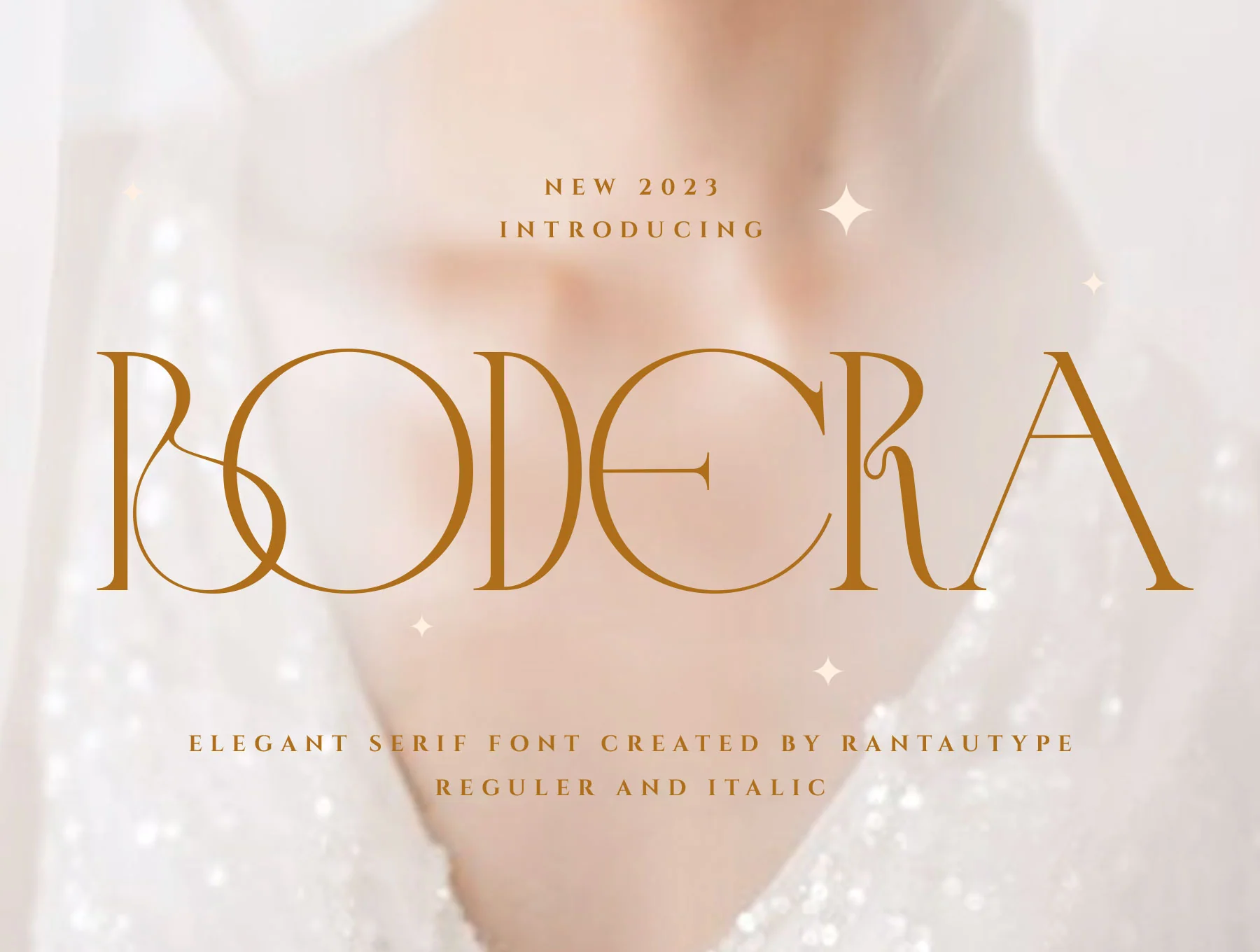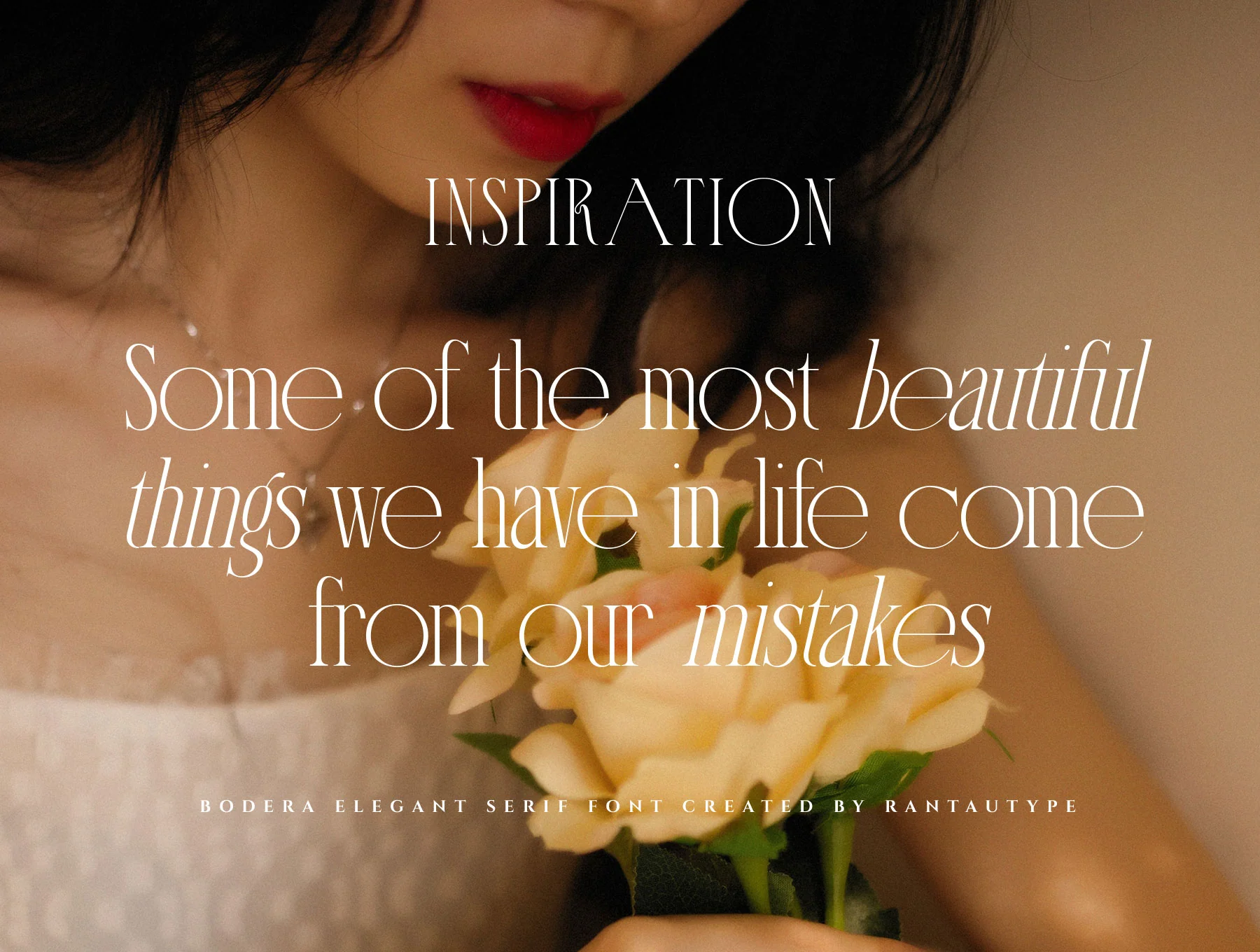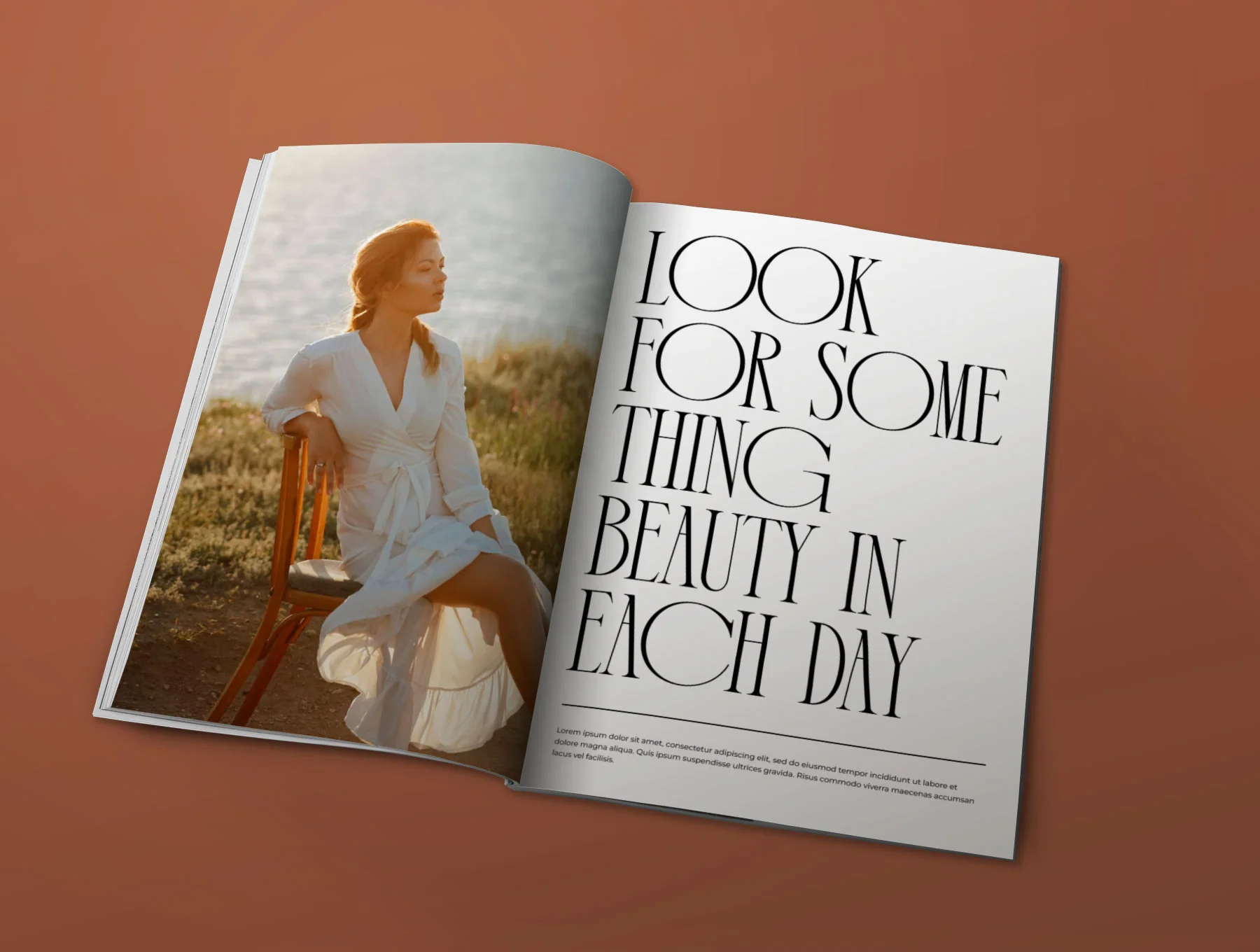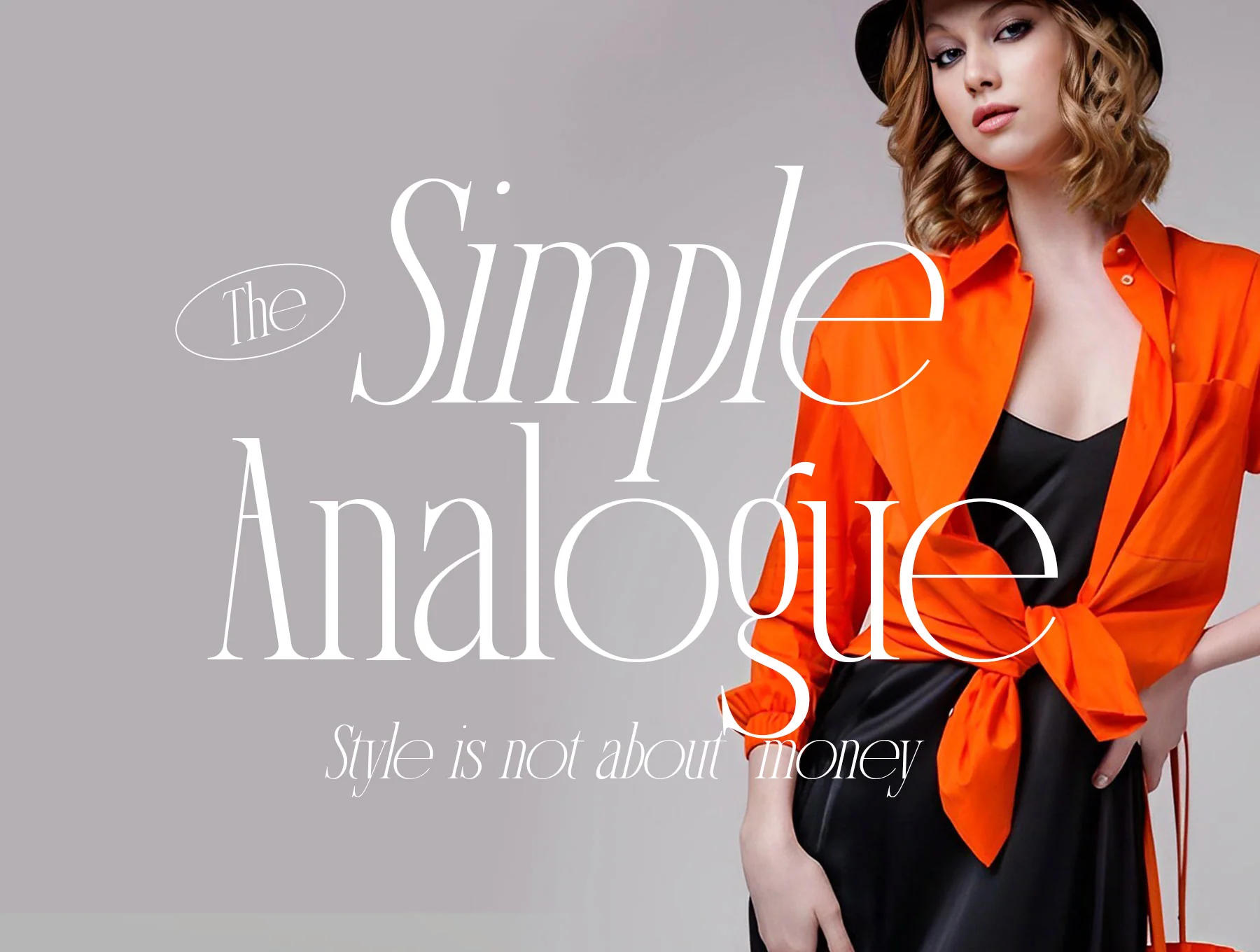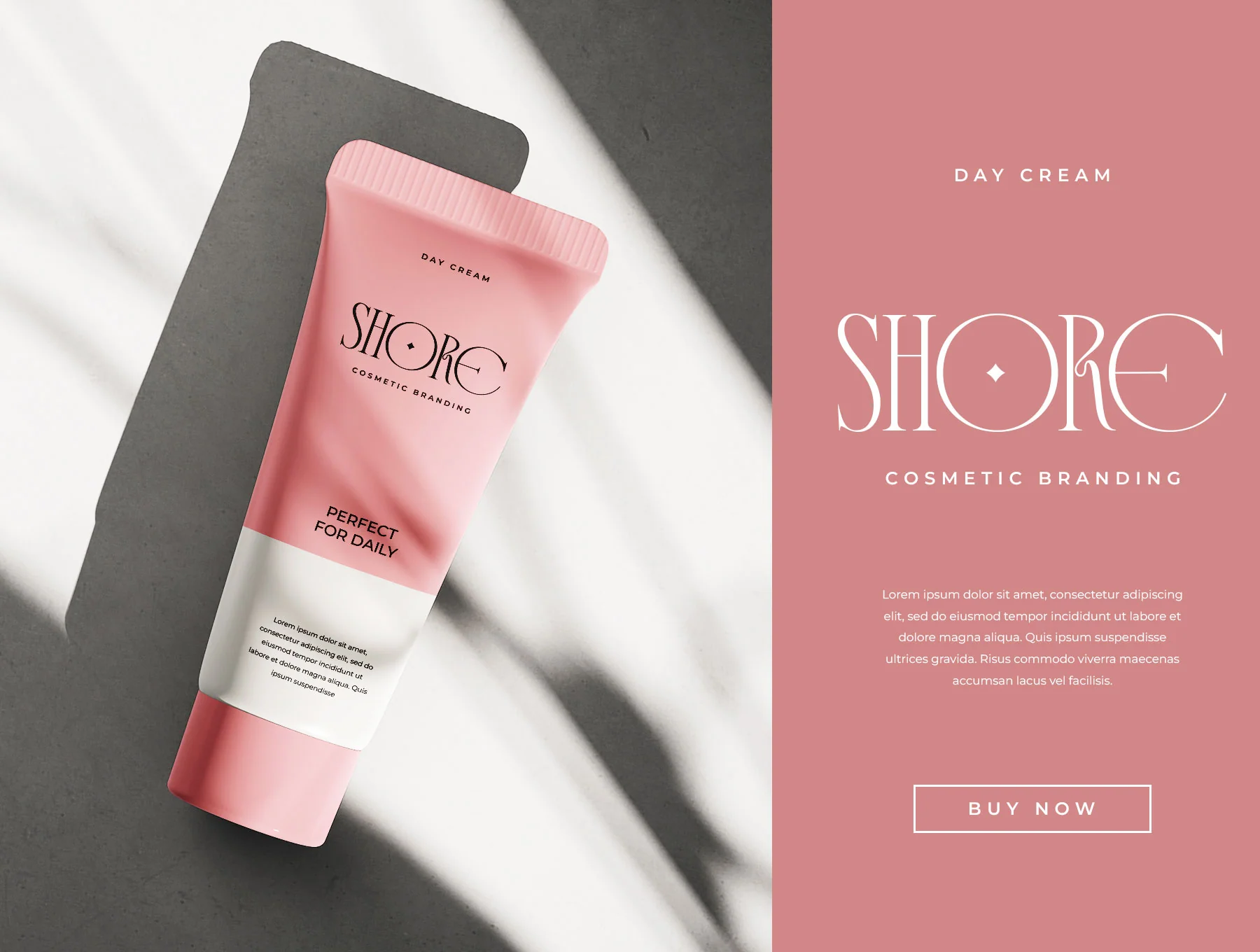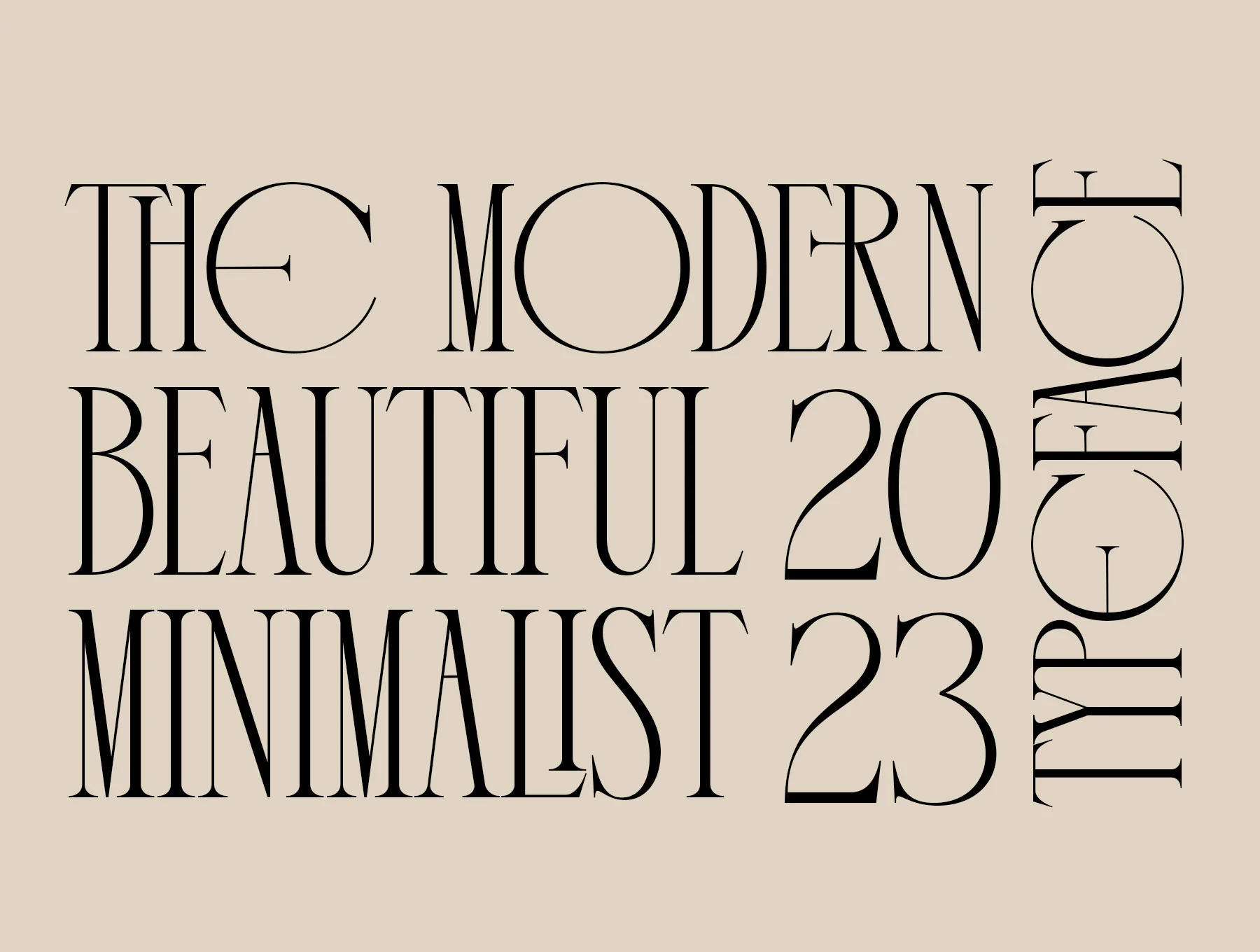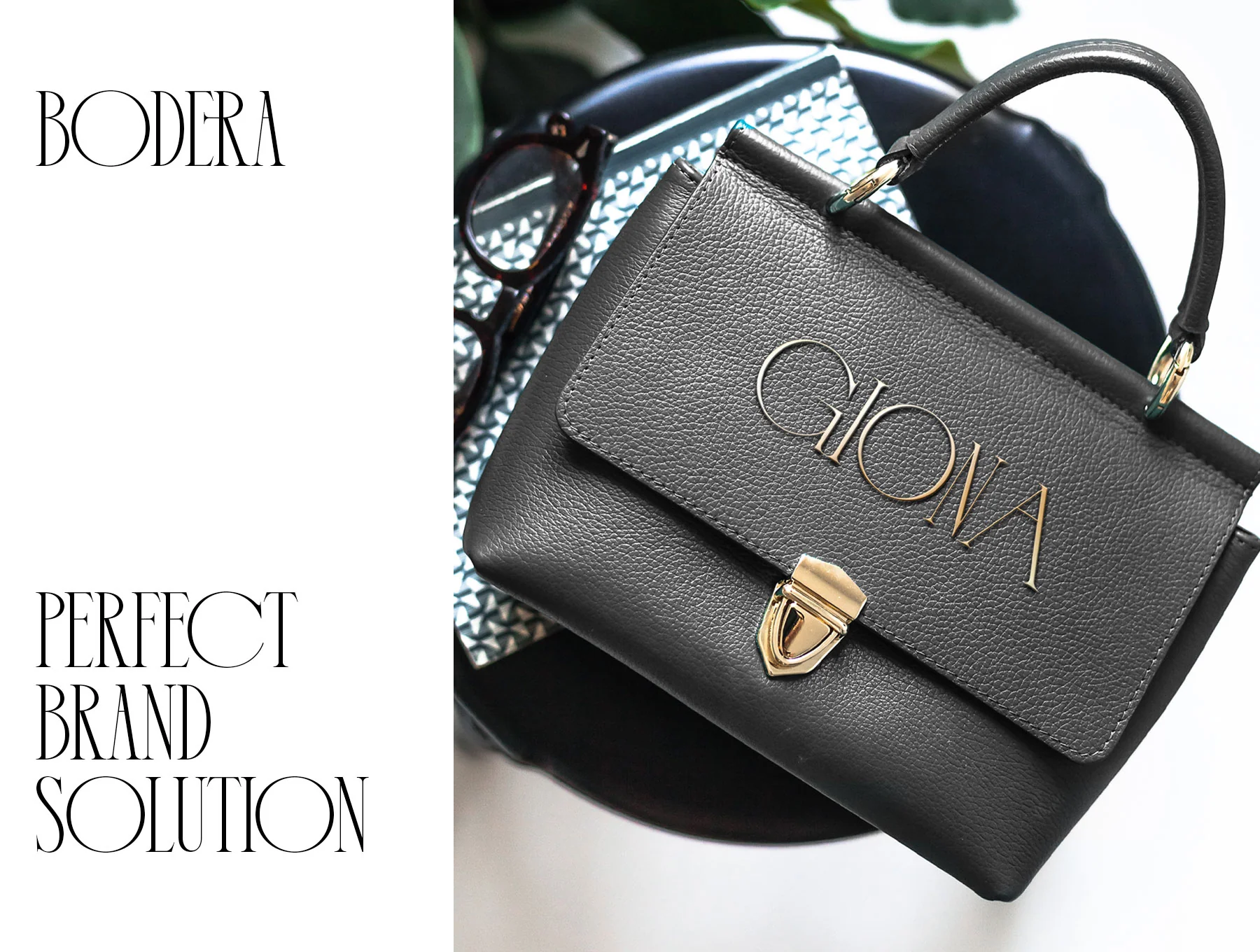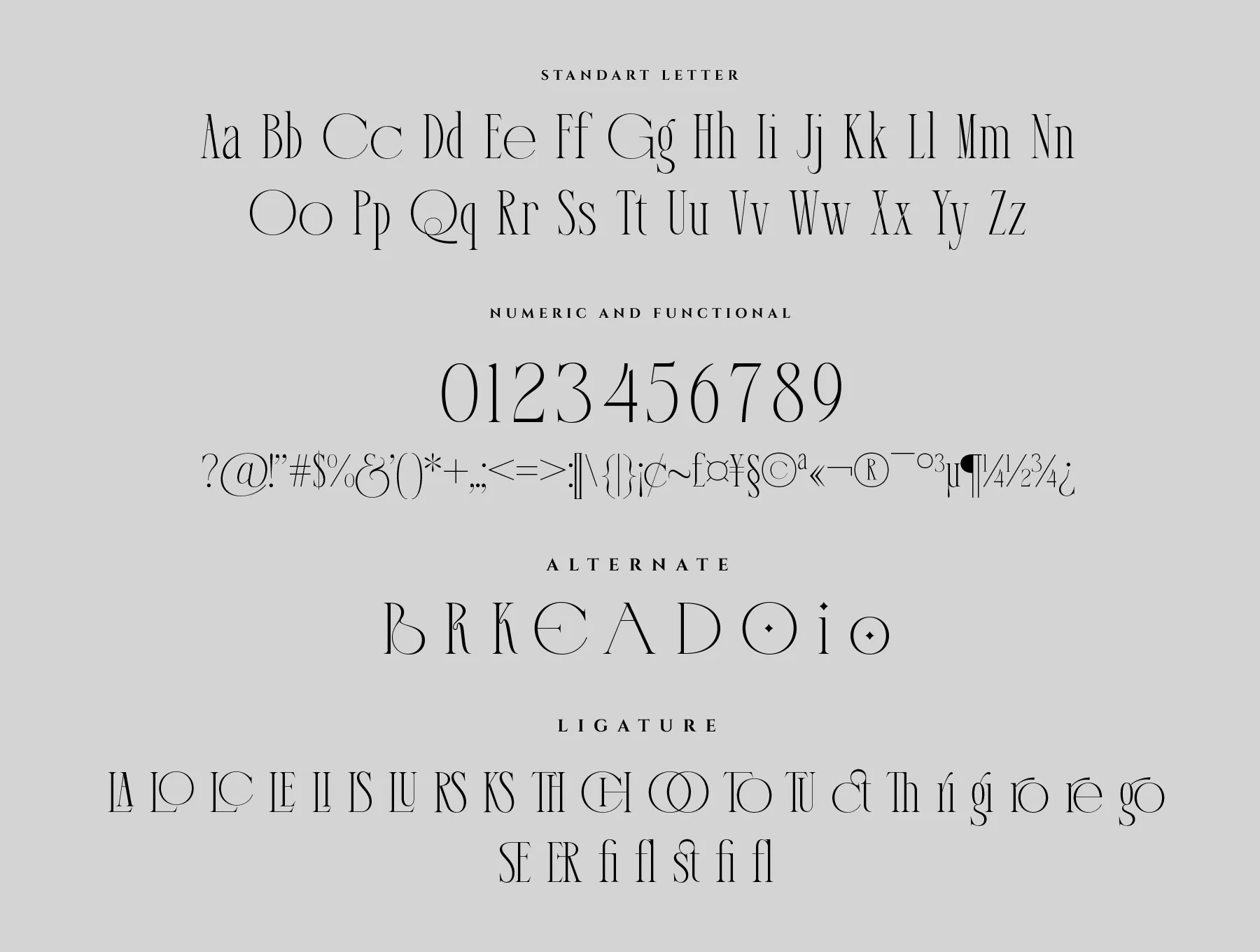
Bodera Elegant Display Serif Font
Refined Serif Display Typeface
Standard A–Z and a–z characters
Numerals and functional symbols
Alternates and ligatures
Introducing Bodera by rantautype, a refined ligature serif display font with slim, tall forms and stylish alternates for select letters. Includes regular and italic styles, ligatures, OpenType features, numerals, symbols, and multilingual accents. Supplied in OTF, TTF, and WOFF. Ideal for logos, titles, covers, branding, magazines, weddings, ads, and luxury design projects.